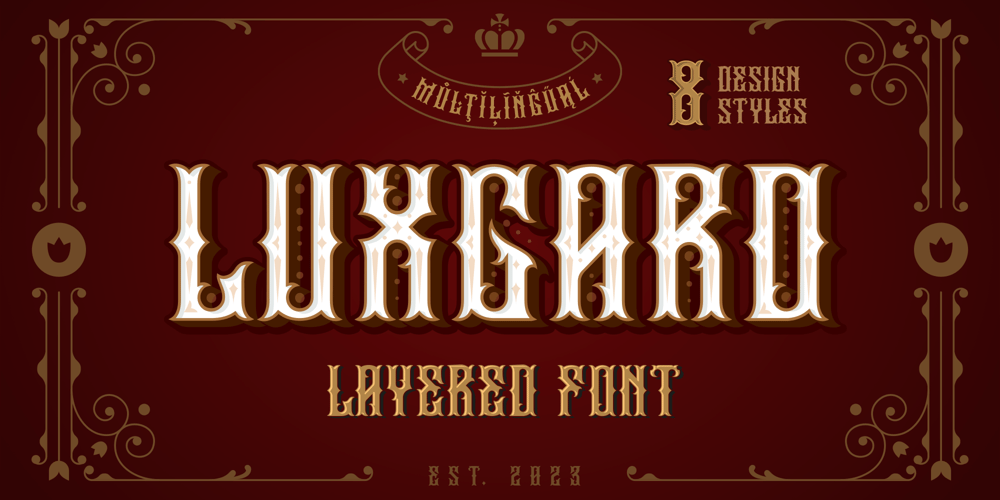
Luxgard Font Family was designed by Dmytro Poliakh and published by Sentavio. Luxgard contains 8 styles and family package options. Luxgard is an authentic vintage font of 8 design styles (done as separate fonts) created for such areas as Media & Entertainment, Food & Drinks, Clothes, Music, Games & Applications, etc. with Multilingual support (Latin Extended).Well use in vintage labels, headers & titles, Posters, Street Signs and other Outdoor, Package Design.Please see the preview image with three letters S: You can make different combinations of these styles to get amazing looks of designs.